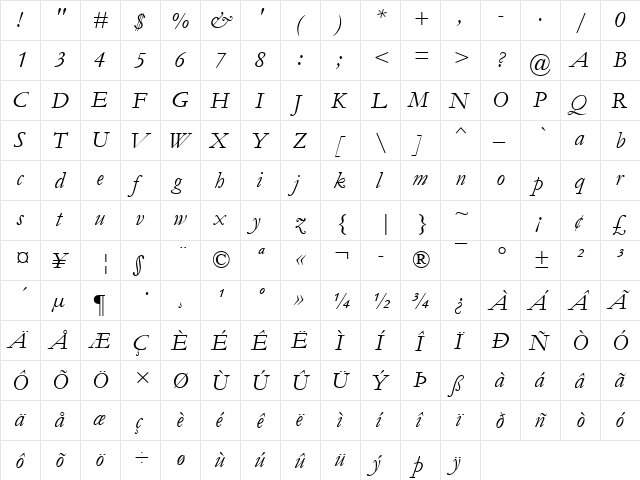
font254 Italic
Design Context for font254 Typeface
font254 offers clean, dependable letterforms without strong stylistic allegiance, making it a practical choice for designers who need flexibility. The dynamic lean of this cut emphasises speed and emphasis in any layout.
Pro Tip: Try font254 for annotation and caption copy alongside an upright companion — the contrast in angle creates a dynamic but ordered typographic system.